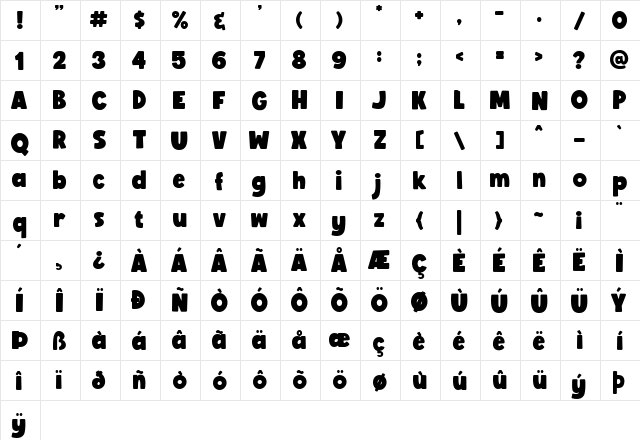
BoldenVan Regular
| Foundry | alexatype |
| Designer | alexatype |
Design Context for BoldenVan Typeface
BoldenVan offers clean, dependable letterforms without strong stylistic allegiance, making it a practical choice for designers who need flexibility. Its bold stroke weight gives it real presence on the page.